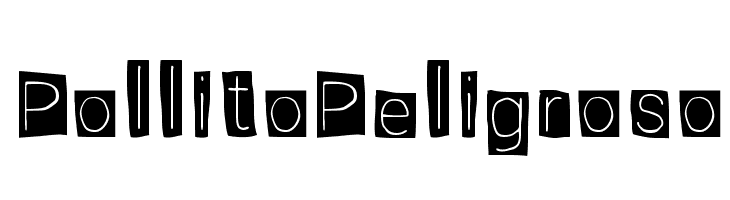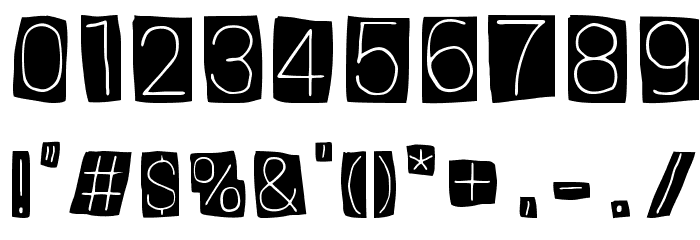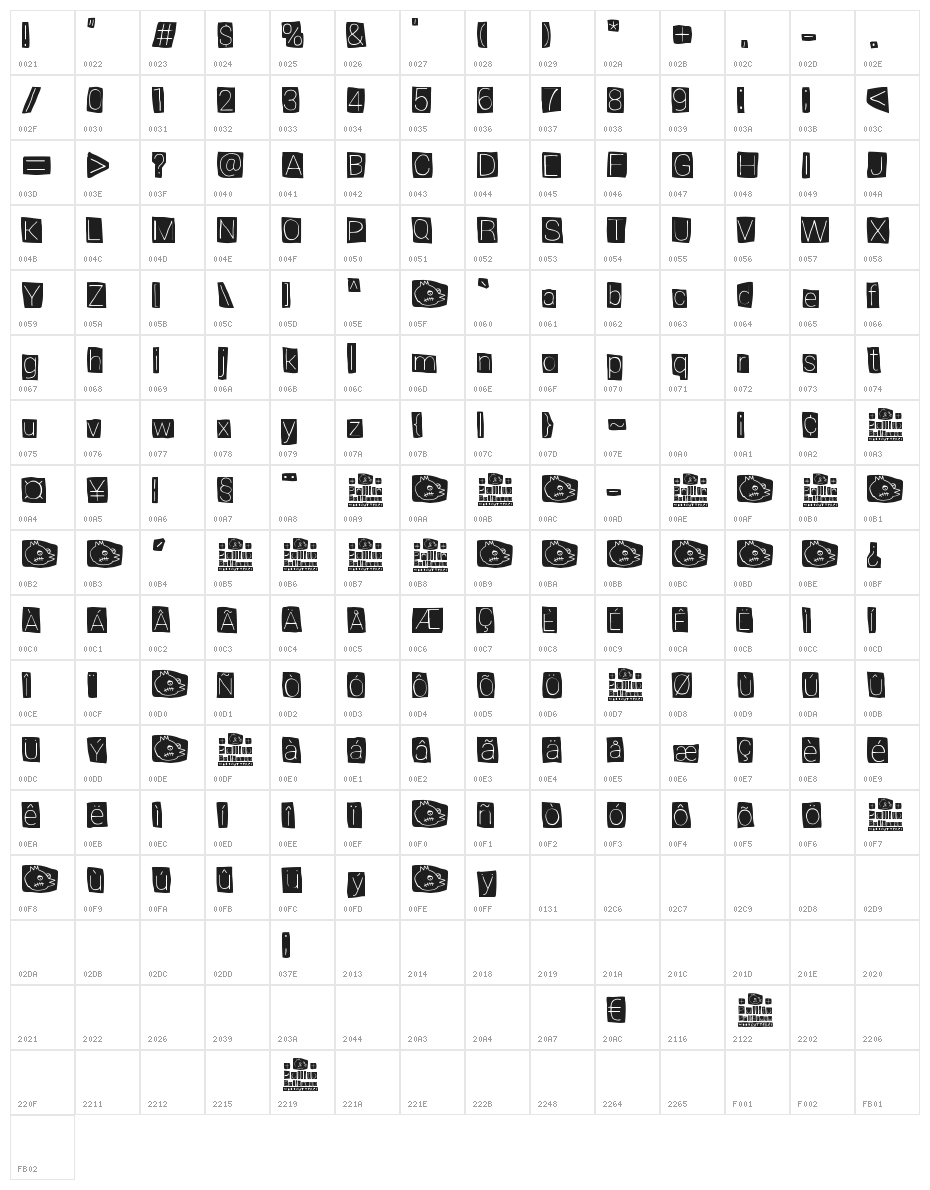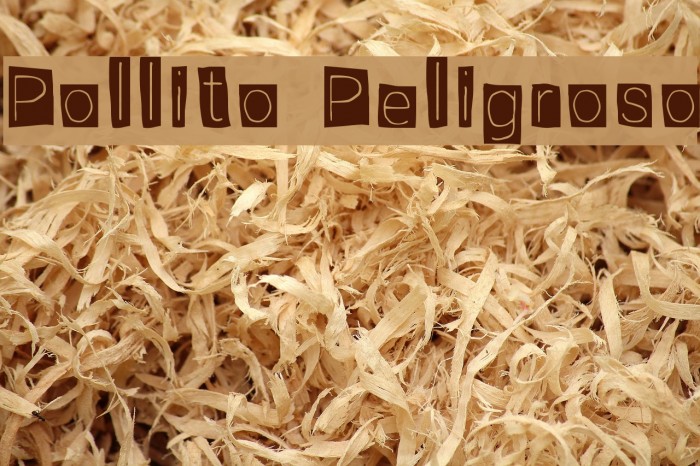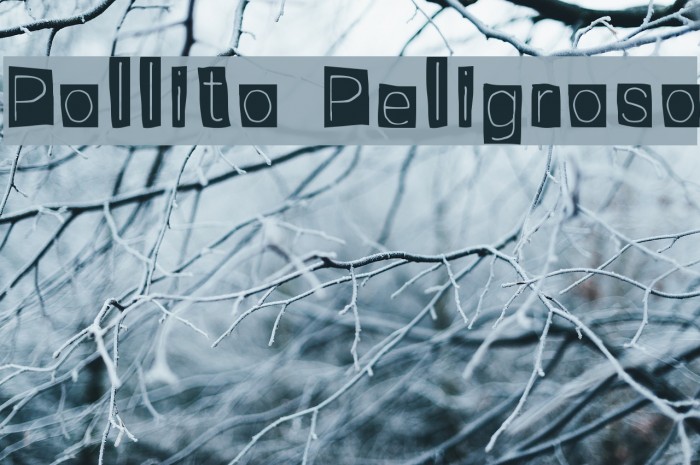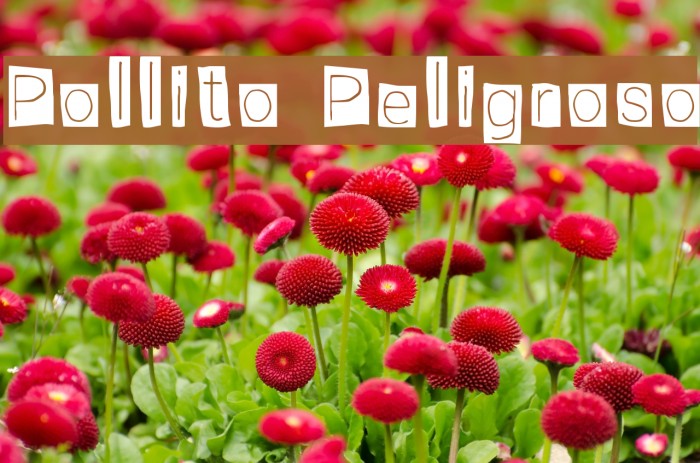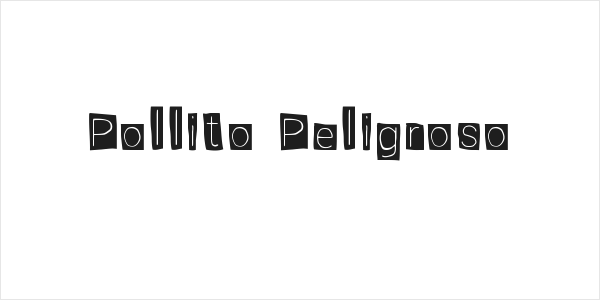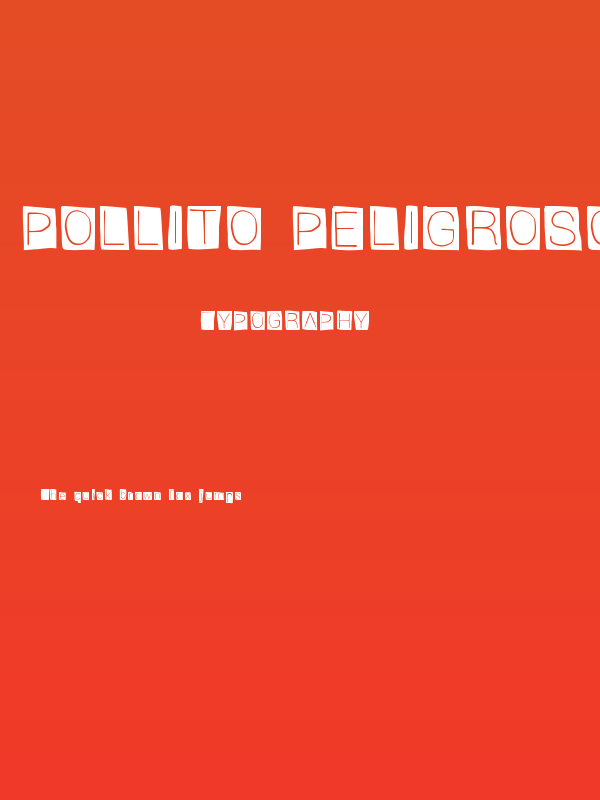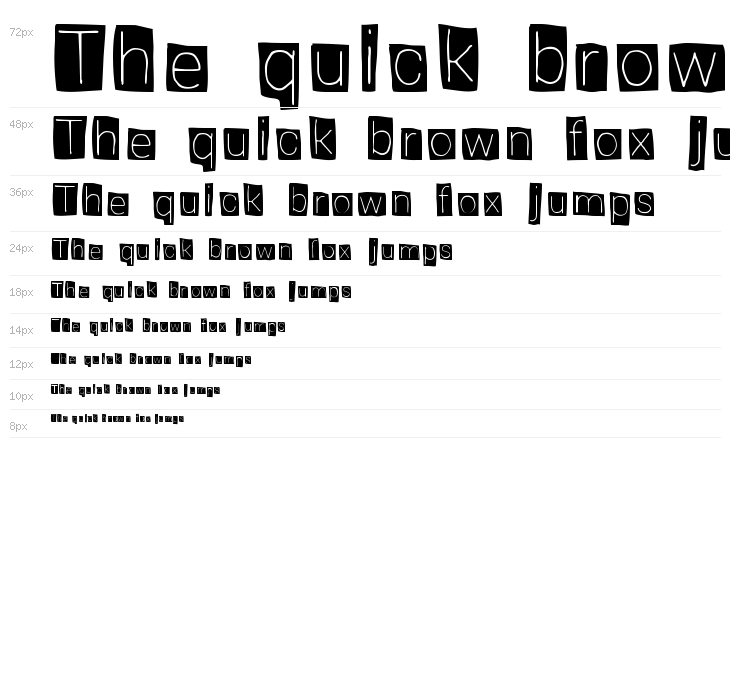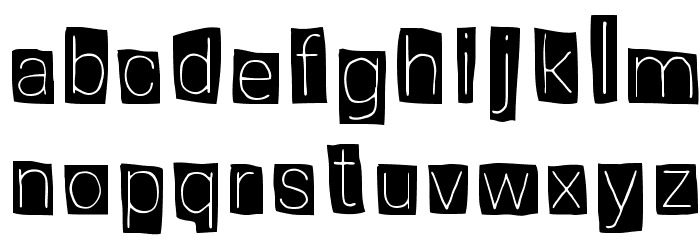
Pollito Peligroso Font
Pollito Peligroso Description
This font features a playful and quirky design, with each character enclosed in a bold, irregularly shaped box. The letters have a hand-drawn, whimsical quality, with uneven lines and a slightly tilted appearance, adding to its charm. The uppercase and lowercase letters maintain a consistent style, while the numbers and special characters follow the same playful theme. The font's unique style makes it stand out, offering a fun and informal vibe that is perfect for creative projects. Its bold appearance ensures readability while maintaining a distinctive look.